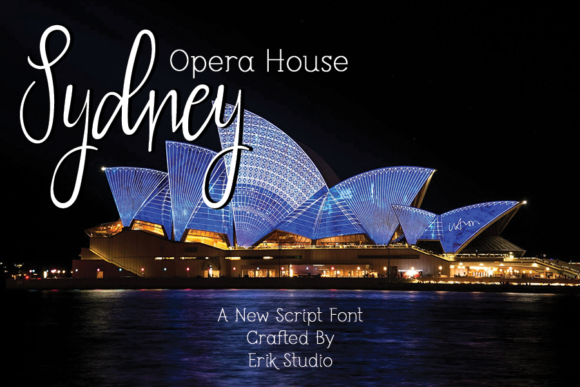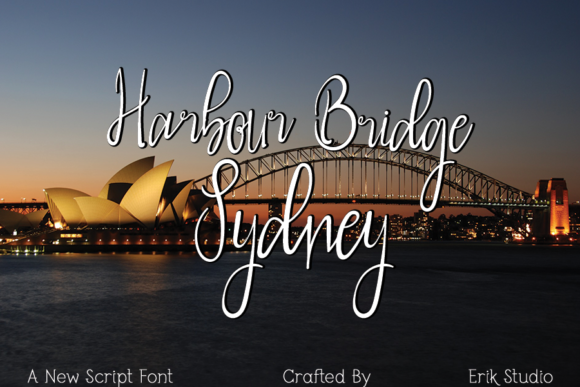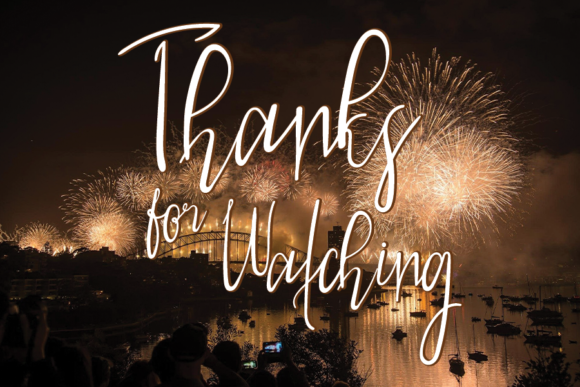
About Sydney Font
Sydney is an incredibly unique handwritten font. Masterfully designed to become a true favorite, this font has the potential to bring each of your creative ideas to the highest level!